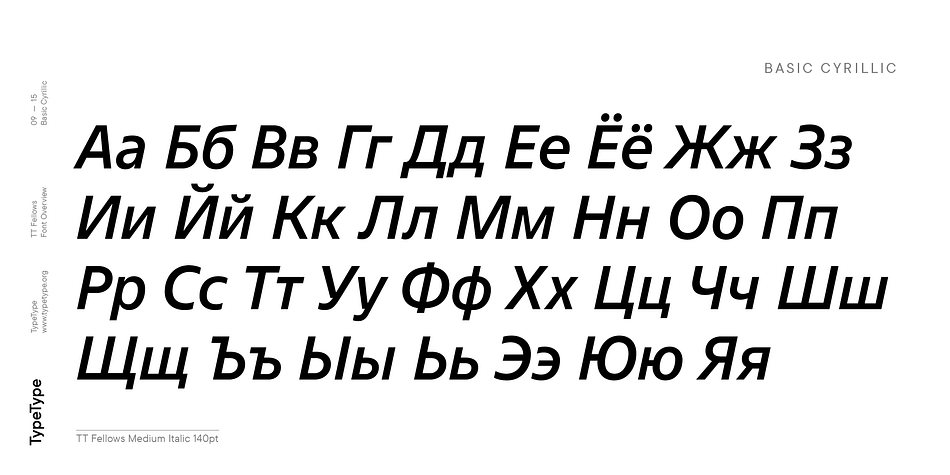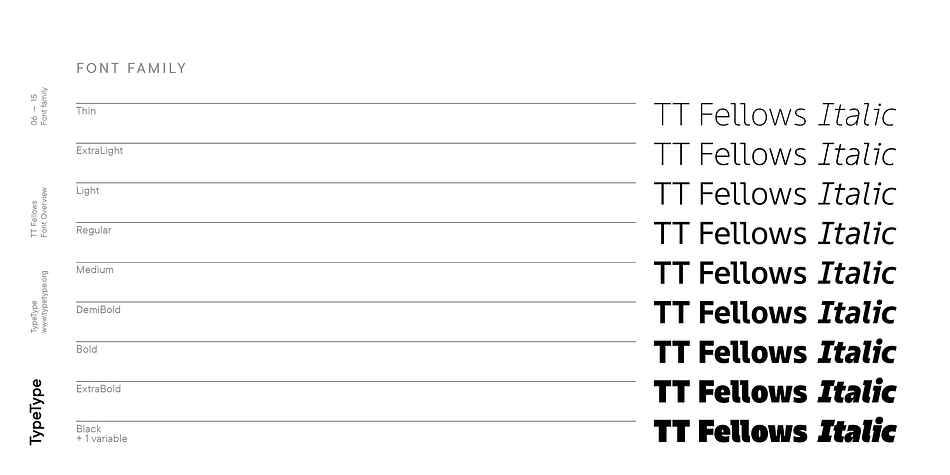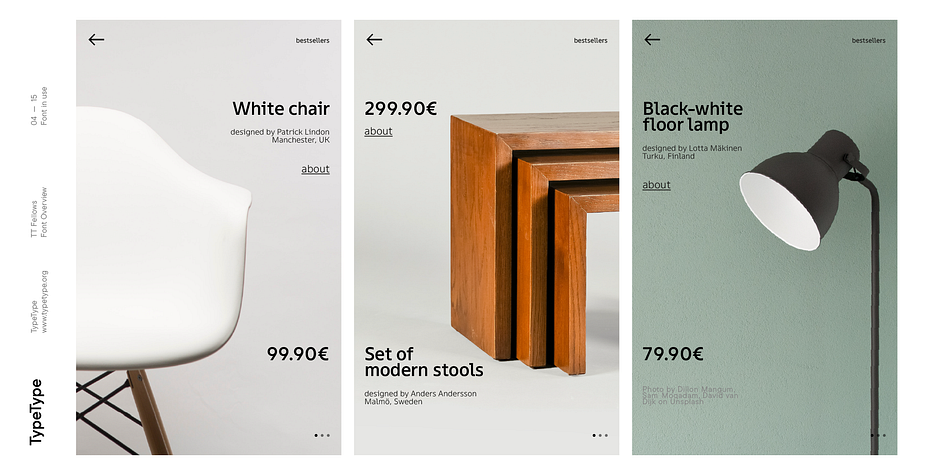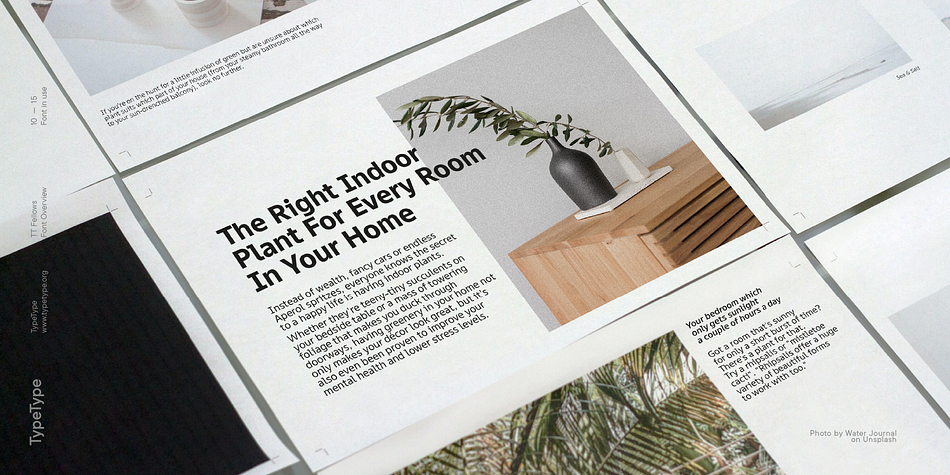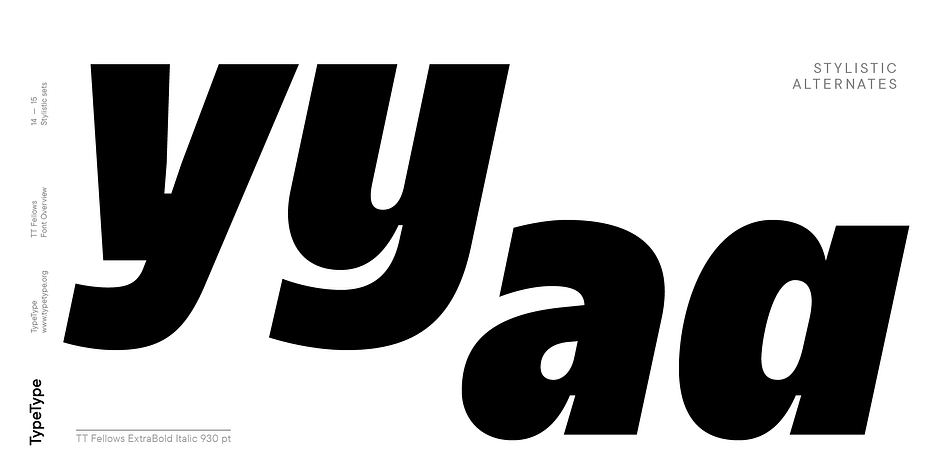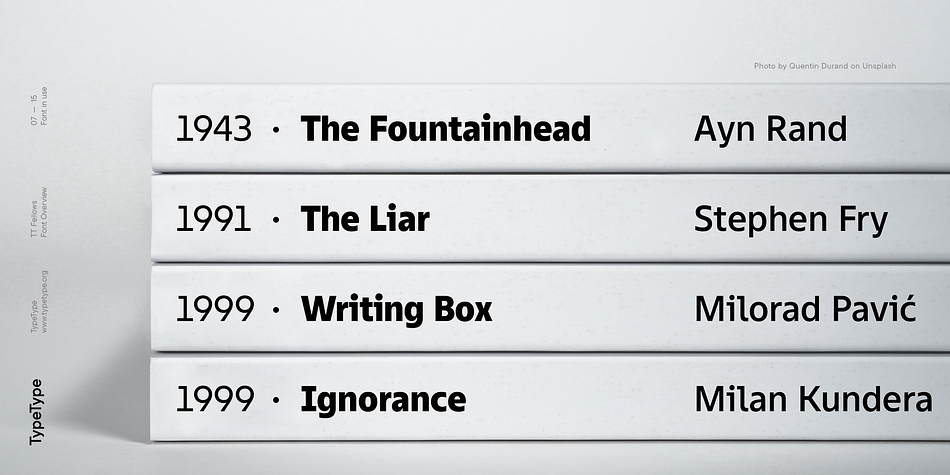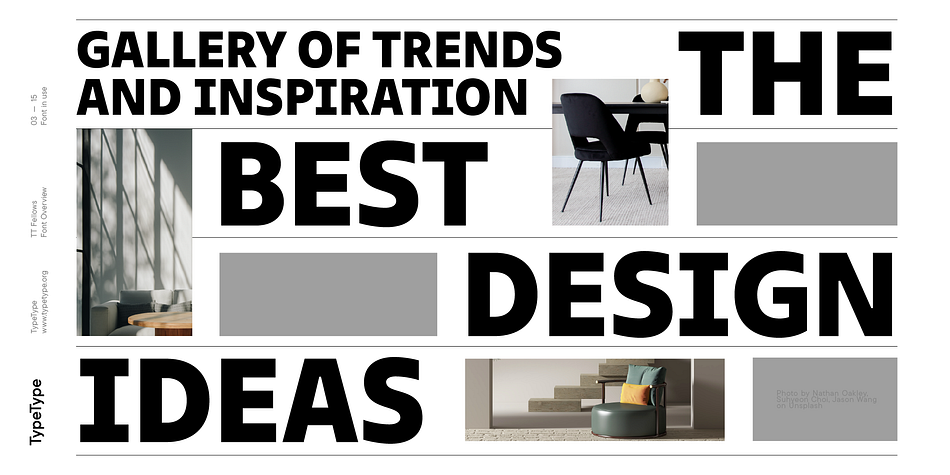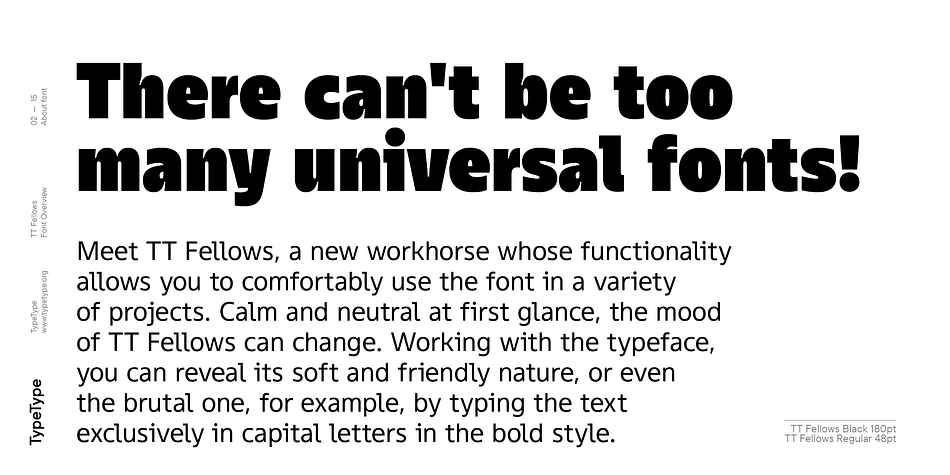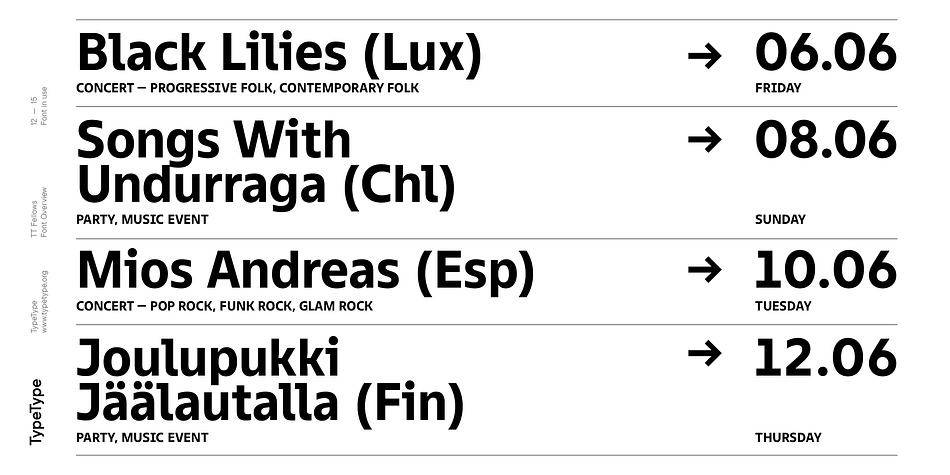
TT Fellows
Designed by Antonina Zhulkova, Yulia Gonina and TypeType Team, TT Fellows is a sans serif font family. This typeface has nineteen styles and was published by Typetype.
There can’t be too many universal fonts!
Meet TT Fellows, a new workhorse whose functionality allows you to comfortably use the font in a variety of projects.
Calm and neutral at first glance, the mood of TT Fellows can change. Working with the typeface, you can reveal its soft and friendly nature, or even the brutal one, for example, by typing the text exclusively in capital letters in the bold style.
TT Fellows is easy to use and perfect for setting large text arrays. Thanks to the font’s uniwidth and versatility, the font is ideal for use on websites or in periodicals. Bold styles will work harmoniously in headlines or as accents in print or on packaging.
TT Fellows is a humanist sans serif with a mechanical touch. With its open shapes, the friendly neutral character of thin weights and an even softer character in bold weights, the new typeface differs in character from the classic TT Norms® and TT Commons sans serifs, while still offering the same functionality. Calm regular styles differ from bold, deliberately display and more expressive ones.
By the way, TT Fellows is a unwidth typeface. It was important for us that the user could change the styles, knowing that the layout will not suffer. The typeface features equal width proportions, open apertures, and slightly squared ovals, which associatively brings it closer to other popular modern fonts.
Since the idea of the typeface was focused on it being a uniwidth typeface, we needed to fit the bold styles into the regular em squares, which led to interesting graphic solutions that are noticeable, for example, in the k and ж characters, in which the branches are cut directly into the stems.
TT Fellows consists of 19 styles: 9 upright, 9 italic and 1 variable, each with over 700 glyphs. The font has 26 useful OpenType features. For example, there is a switch to single-part versions of letters a and y, fractions, tabular characters, case versions of punctuation, and localized versions of characters for different languages. There is a ligature for a combination of two characters of a complex design fl.